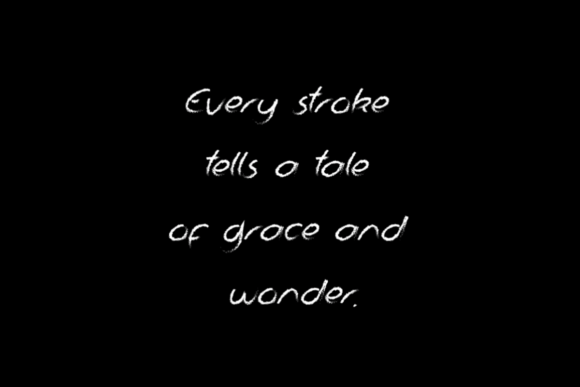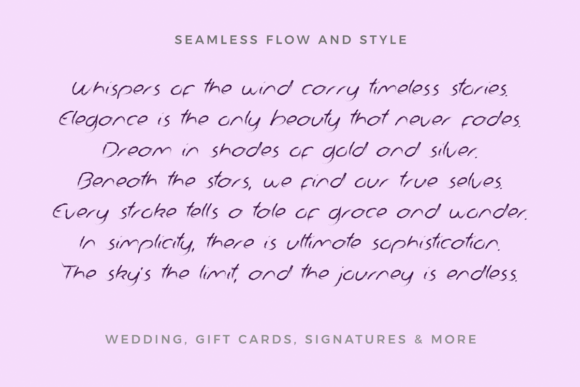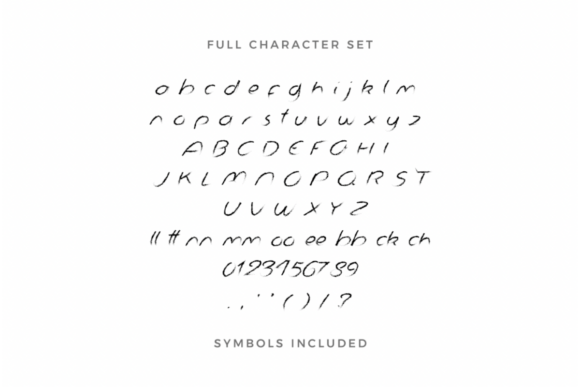
Introduction to Scratchtastic Font
Have you ever been working on a creative project and felt like something was missing – that special touch that elevates your design from ordinary to extraordinary? For many designers, the answer lies in the perfect font. And for those in search of that elusive charm, we’re thrilled to introduce you to the delightful world of the Scratchtastic Font.
This authentic hand-inked and hand-lettered typeface exudes a unique blend of elegance and playfulness, effortlessly embodying an artistic vibe that’s hard to resist. Whether you’re a seasoned pro or a design enthusiast, the Scratchtastic Font is an invaluable resource that will add a personal touch to any project, from digital art to print materials.
Key Features of Scratchtastic Font
- High-quality design resource ideal for creative projects with a transparent background, allowing for seamless integration with various visual elements.
- Scratchtastic Font comes in two sizes: 48-point and 72-point, offering flexibility for different design applications.
- Each font size is available in high resolution (300 DPI), ensuring crisp and clear text rendering.
- Unique, playful characters and letterforms make Scratchtastic Font a standout design resource for creative projects.
- Easy to use and customize, Scratchtastic Font is perfect for designers looking for a fun and engaging typography solution.
Honest Review: Scratchtastic Font
I recently had the chance to try out the Scratchtastic Font, and I must say it’s been a mixed bag for me. On the one hand, I appreciate the creative project it offers for designers, allowing us to experiment with a unique design resource.
One of the standout features of the Scratchtastic Font is its transparent background, which gives designers the flexibility to use it in a variety of contexts. It’s also a high-quality font that’s perfect for use in digital designs.
Here are some of the things that work well for the Scratchtastic Font:
- ✨ Unique design aesthetic that sets it apart from other fonts
However, I do have a few limitations with the Scratchtastic Font:
- ⚠️ Limited font styles available (only a few options)
- ⚠️ Some users may find the font difficult to read in certain contexts
How to Use Scratchtastic Font
The Scratchtastic Font is a versatile design resource ideal for creative projects. Its transparent background and high-quality design make it a perfect addition to any project.
To get the most out of the Scratchtastic Font, use it in conjunction with other design elements to create visually appealing designs. Experiment with different font sizes, colors, and styles to achieve the desired look.
The Scratchtastic Font is ideal for various creative projects, including:
- Logo creation
- Social media content